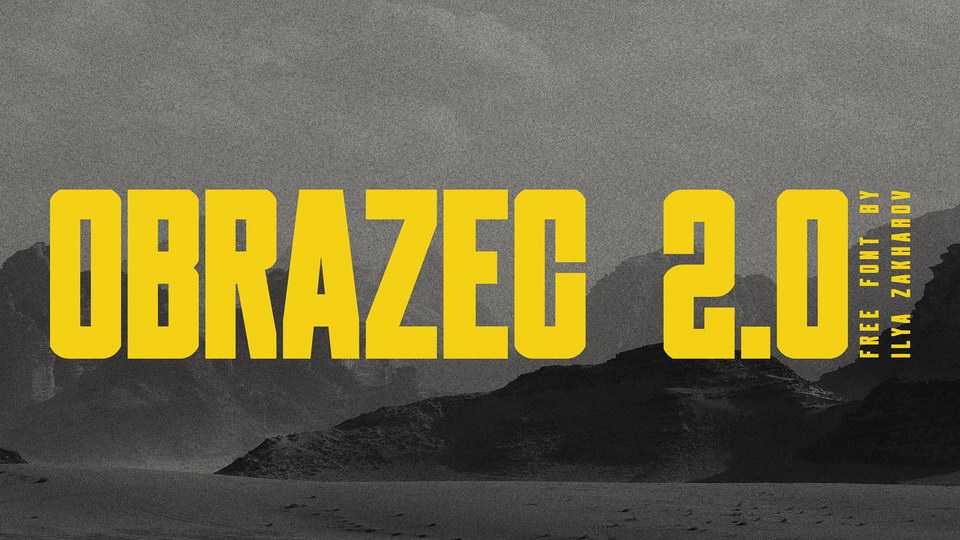
Download Obrazec 2.0 font, a bold industrial display typeface with Latin and Cyrillic support. Obrazec 2.0 is perfect for headlines, posters, album artworks and other display use.
Designer: Ilya Zakharov